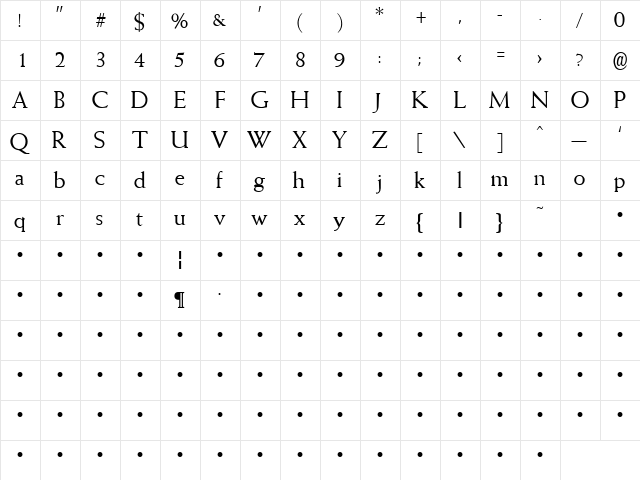
QTWeise Regular
Design Context for QTWeise Typeface
QTWeise is a composed and adaptable typeface that performs quietly and consistently across a wide range of design contexts.